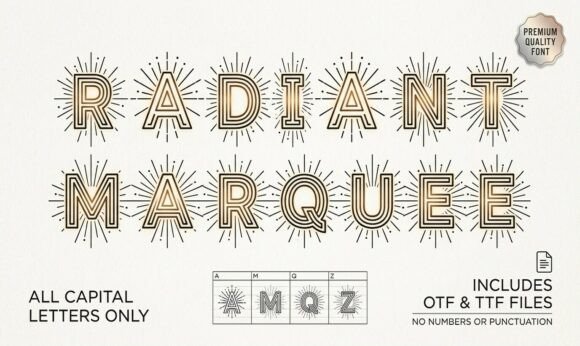
Introduction to Radiant Marquee Font
Step into the spotlight with Radiant Marquee, an exclusive premium font that captures the electric energy of early 20th-century theater and cabaret.
This โAll-Capsโ display font features a sophisticated multi-line inline structure, creating a sense of neon-like vibration and architectural depth Surrounding each character is a distinctive โsunburstโ or โstarburstโ motif, perfectly mimicking the glowing bulbs of a vintage Broadway marquee.
Key Features of Radiant Marquee Font
Why Choose Radiant Marquee Font?
Radiant Marquee Font offers exceptional quality and versatility, making it a valuable addition to your design toolkit. Whether you’re creating for personal projects or commercial use, Radiant Marquee Font delivers professional results.